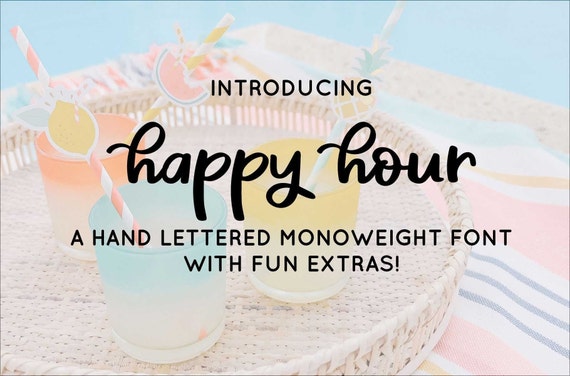
Happy Hour Hand-Lettered Font, Script Font
Happy Hour is a fun hand-lettered font. Its casual style makes it perfect for logos, branding, greeting cards, prints, social media graphics, home decor & more. It has a variety of unique, coded features to create compelling, handmade outcomes.
Happy Hour includes:
- full upper + lowercase characters
- numbers + punctuation
- Western European Language Support
- 9 alternate characters
- 8 common ligatures